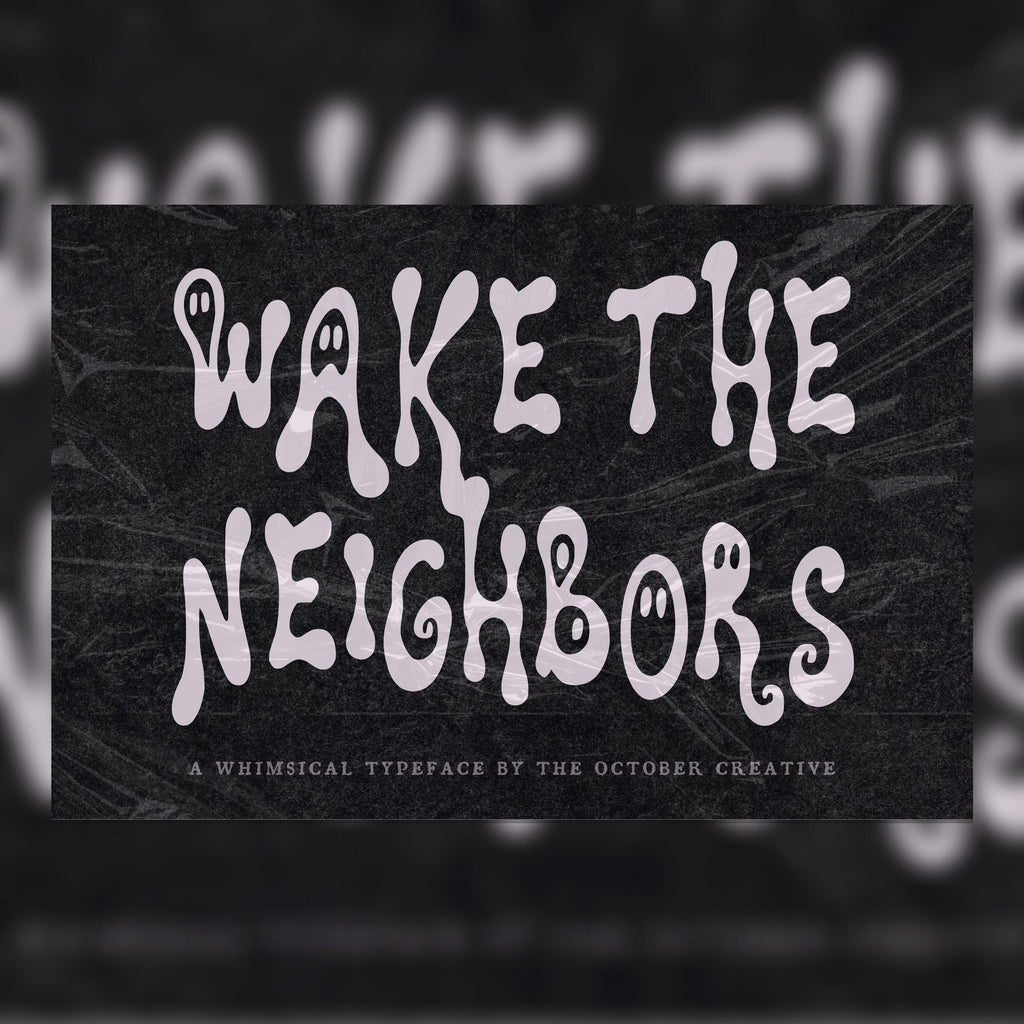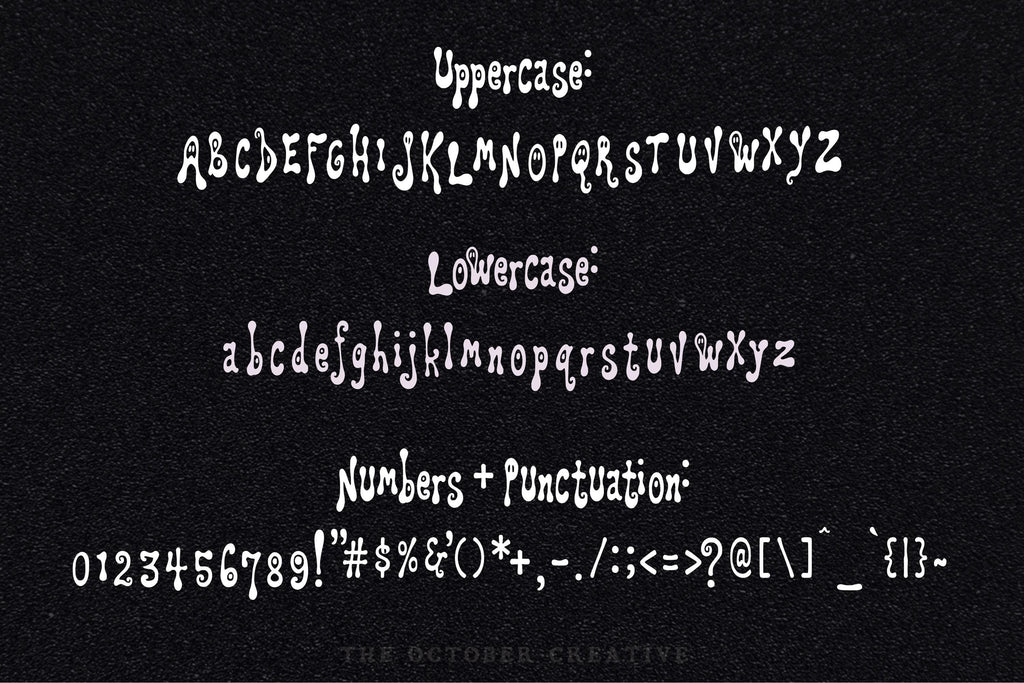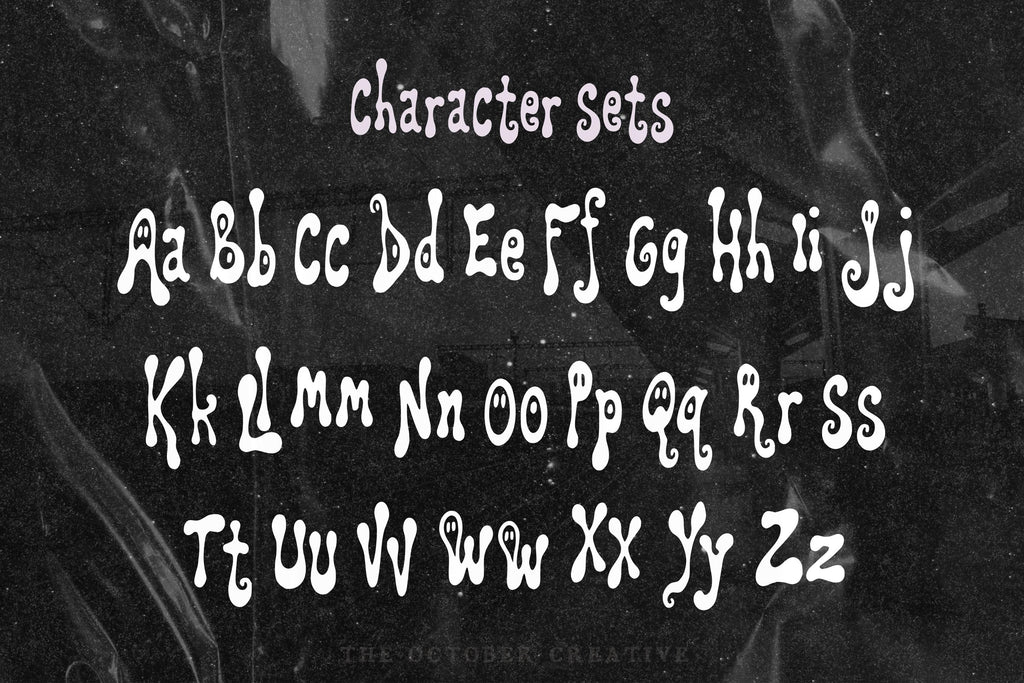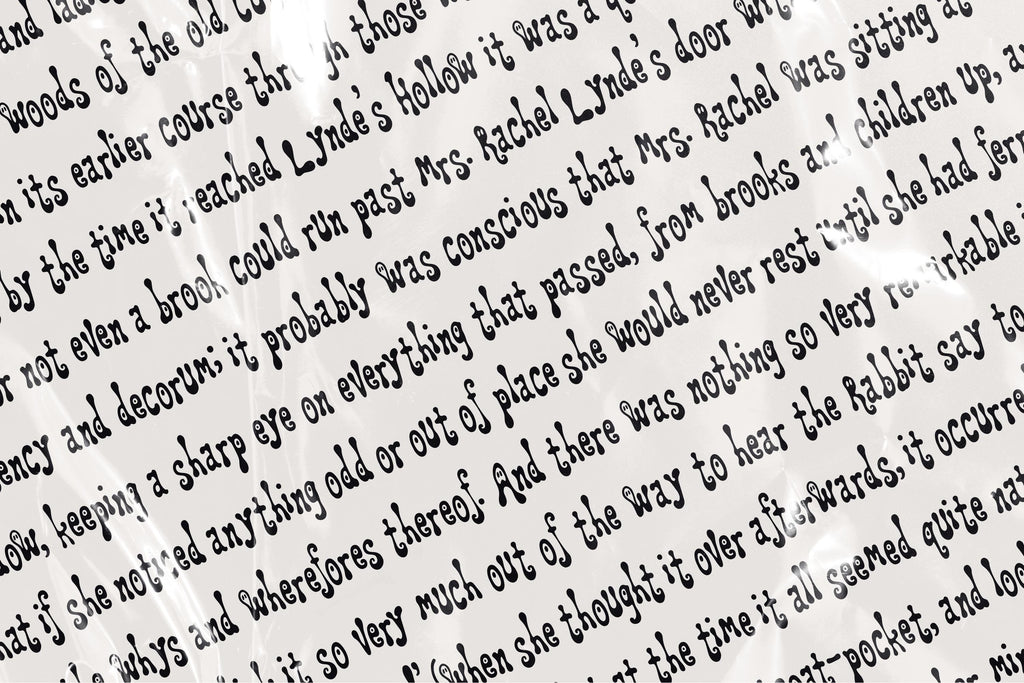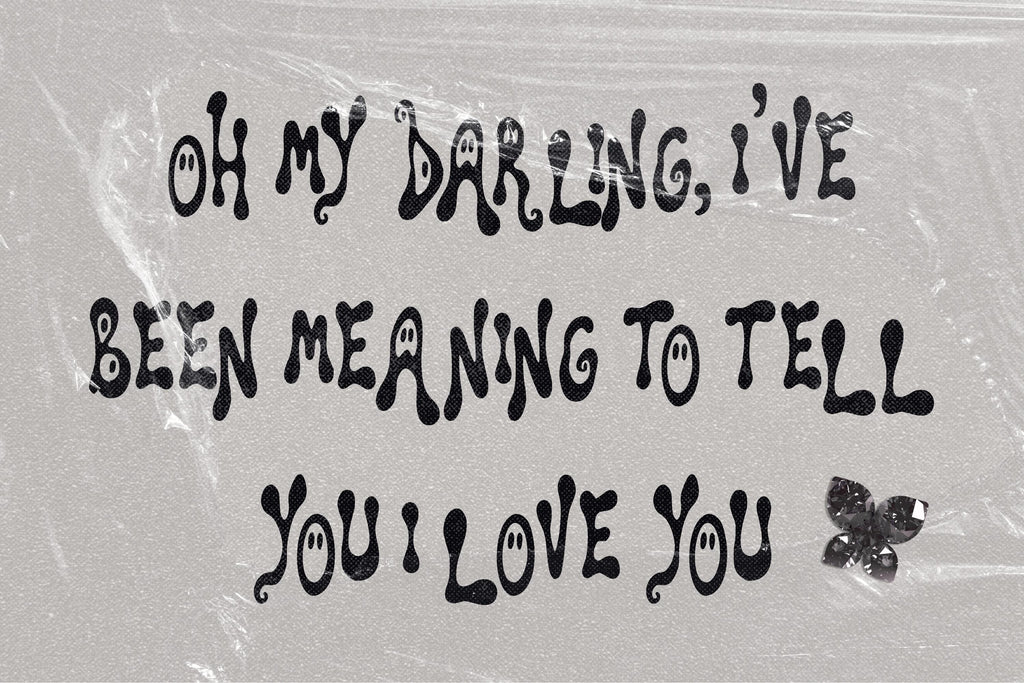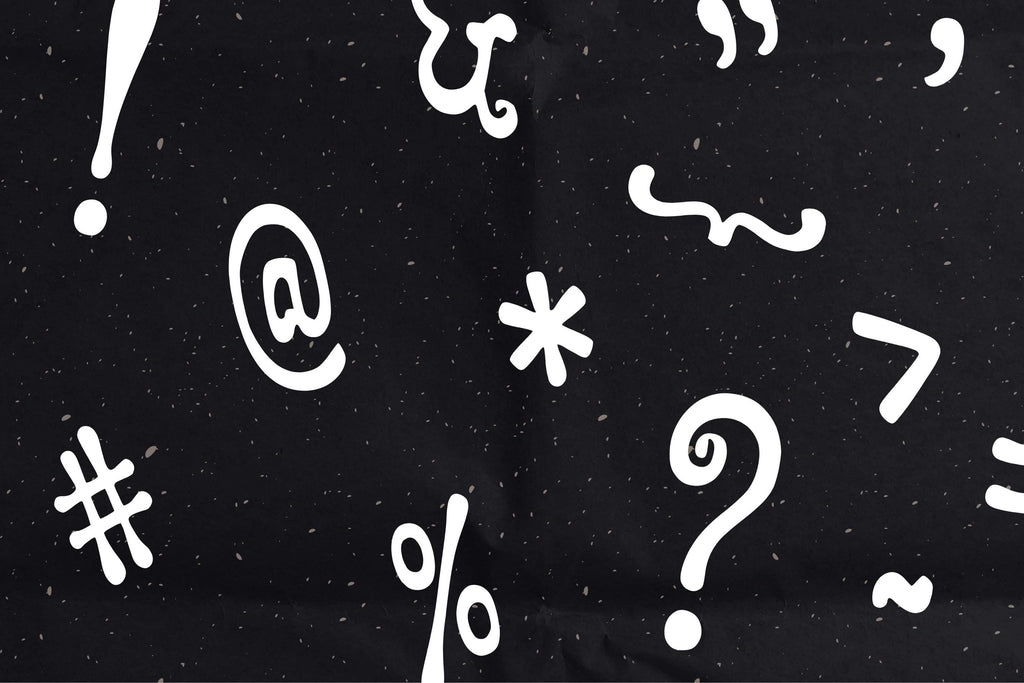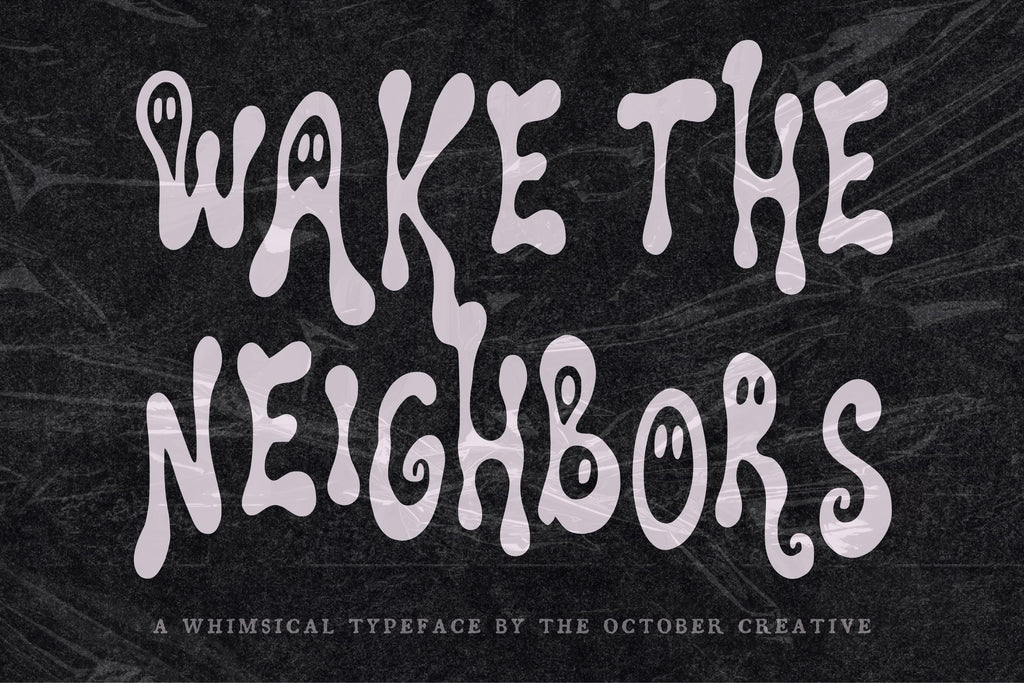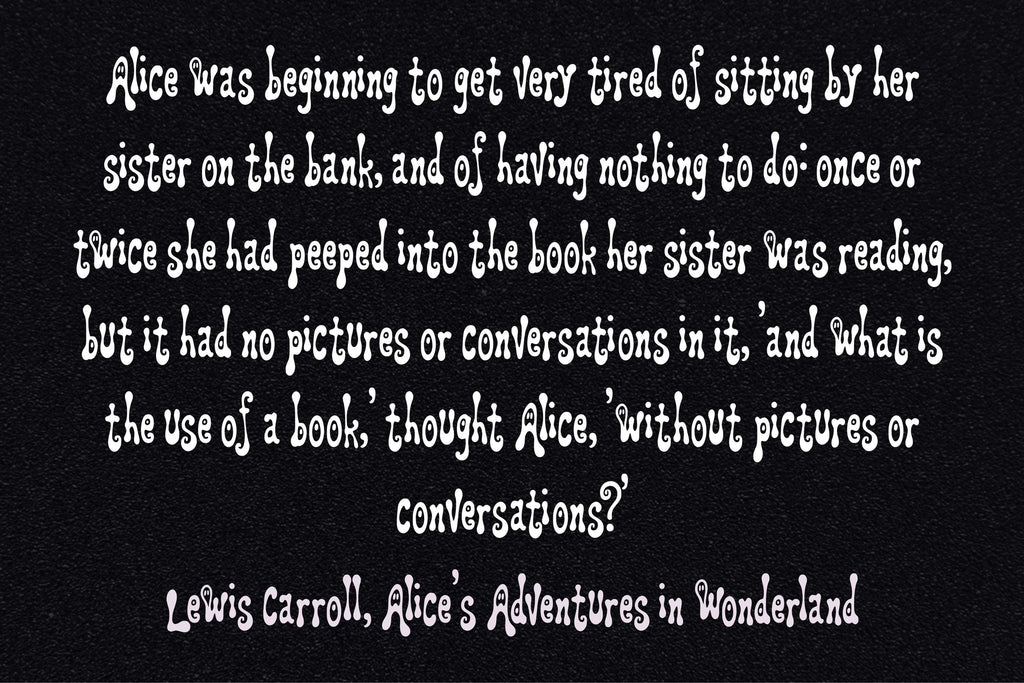
Wake the Neighbors Font
Wake the Neighbors is a big, chunky font with rounded letters that make a cheerful announcement. Try it on party signs, birthday banners, and shop displays when you've got something worth making a fuss about.